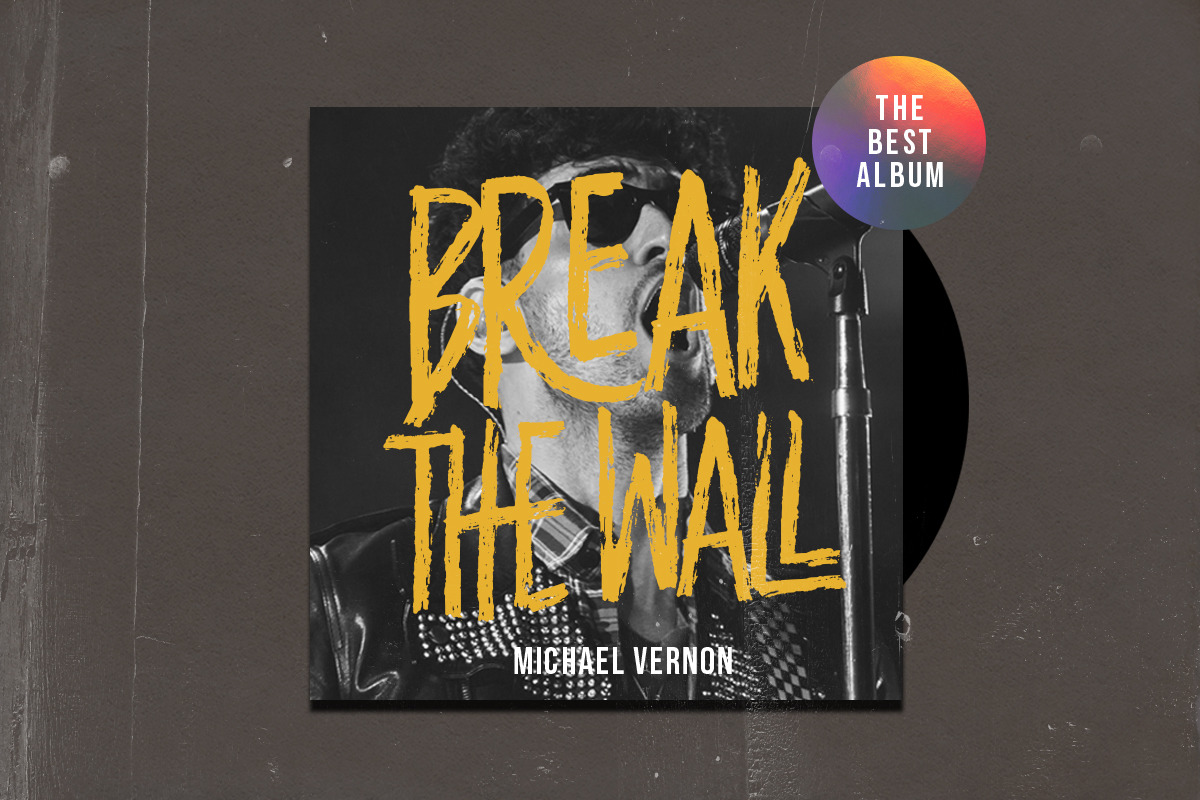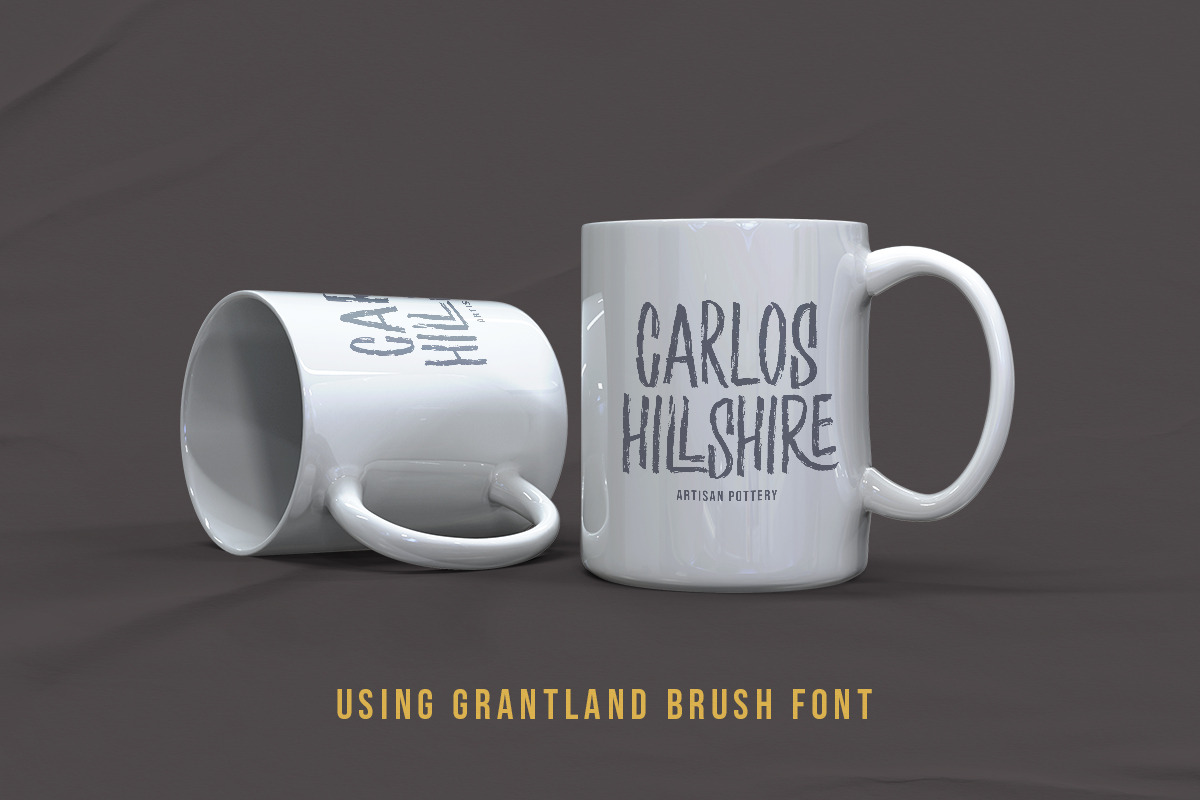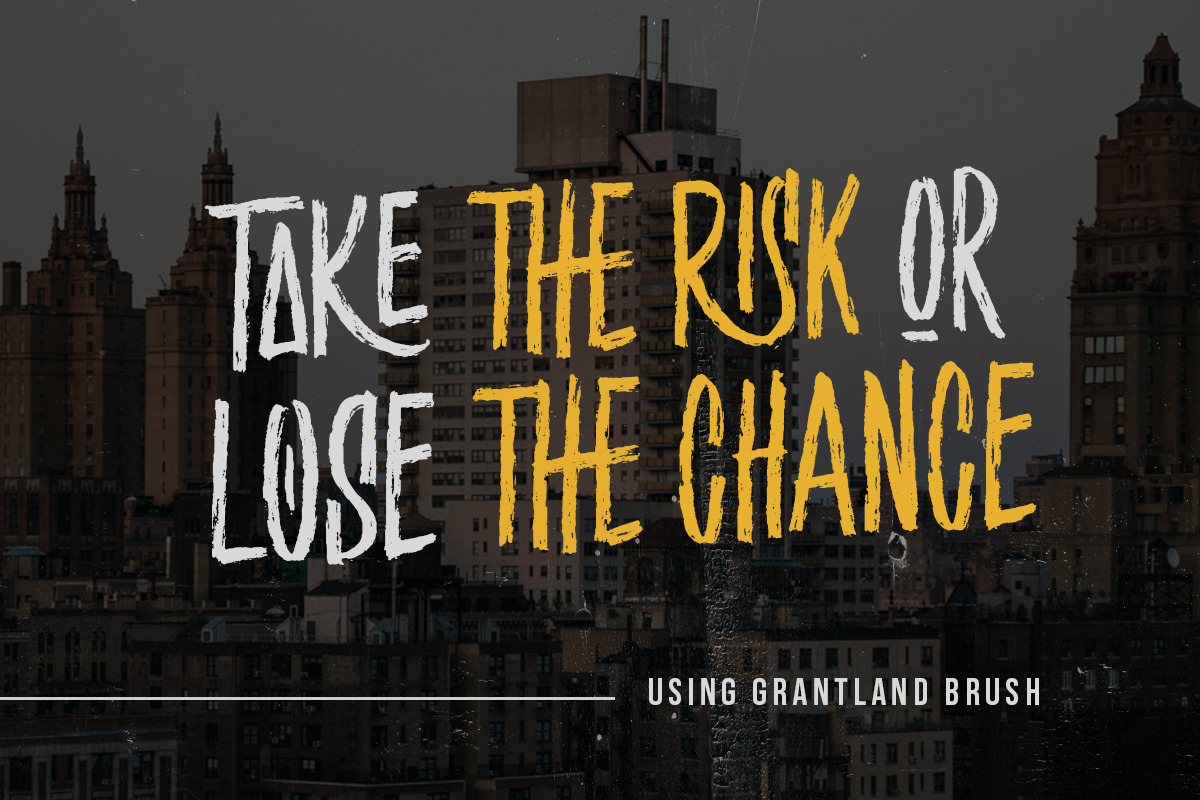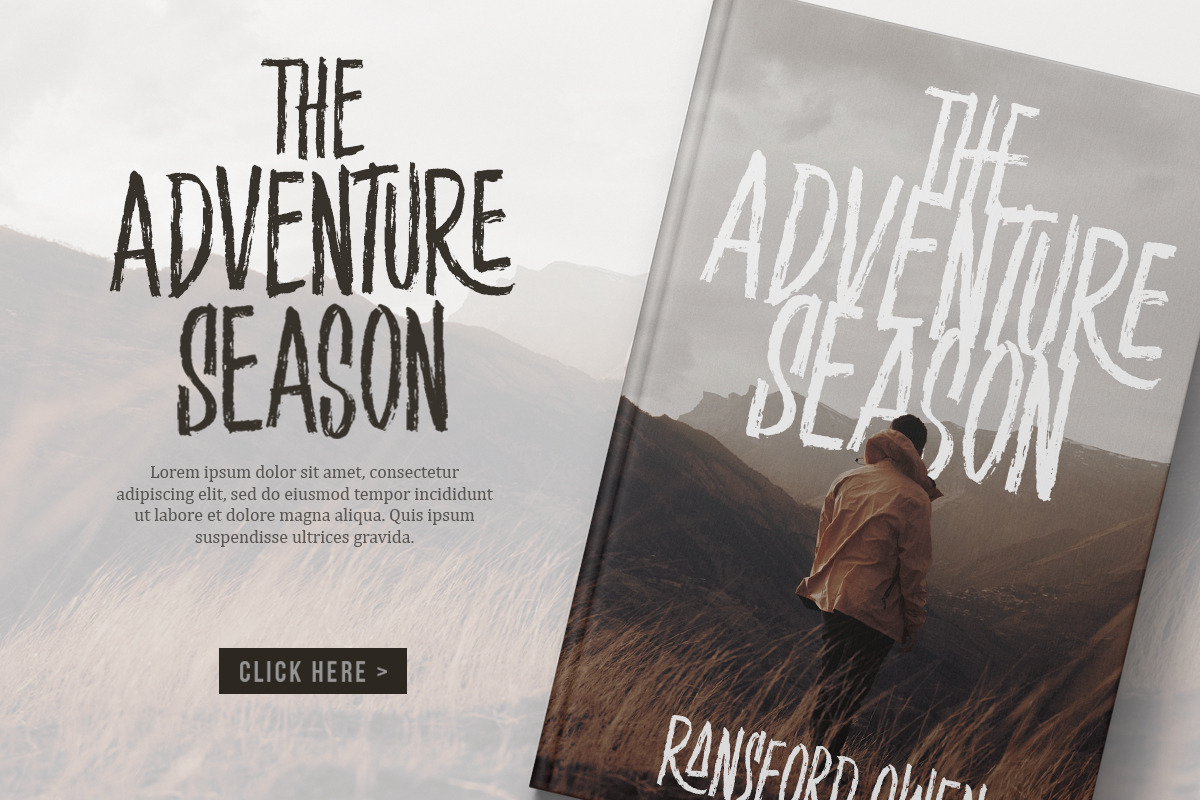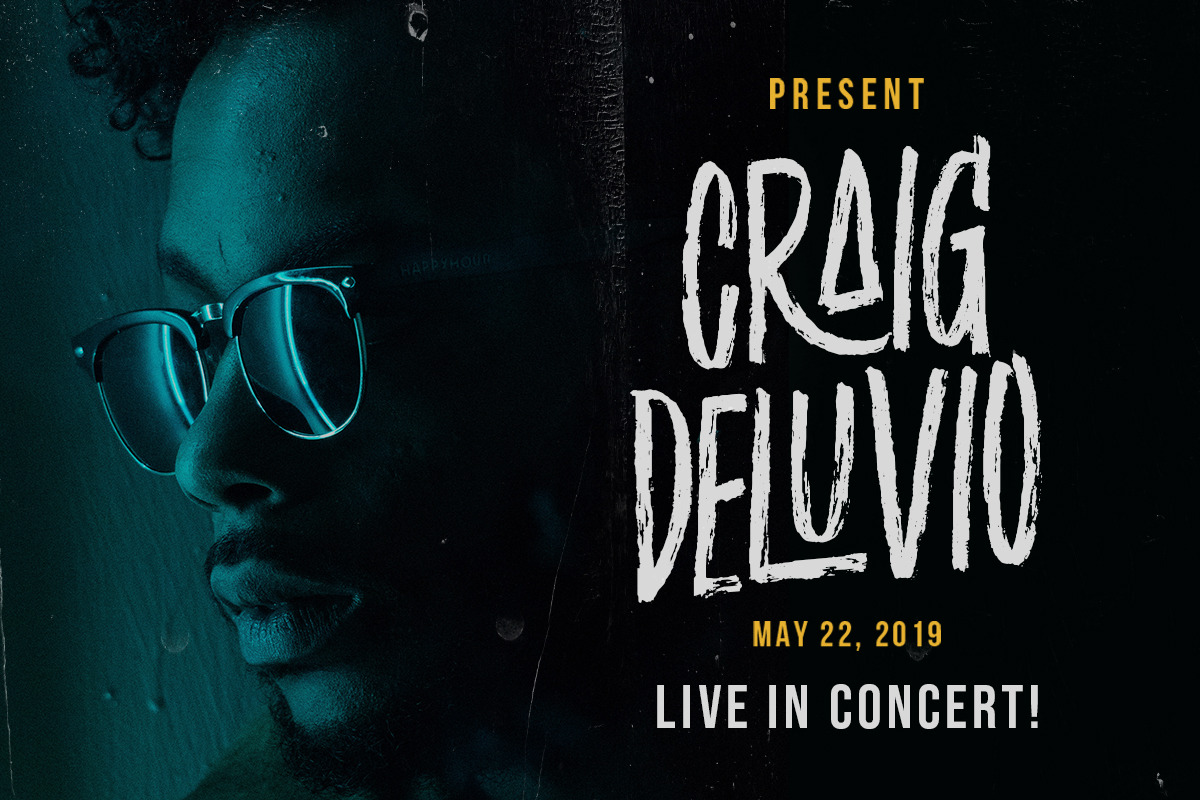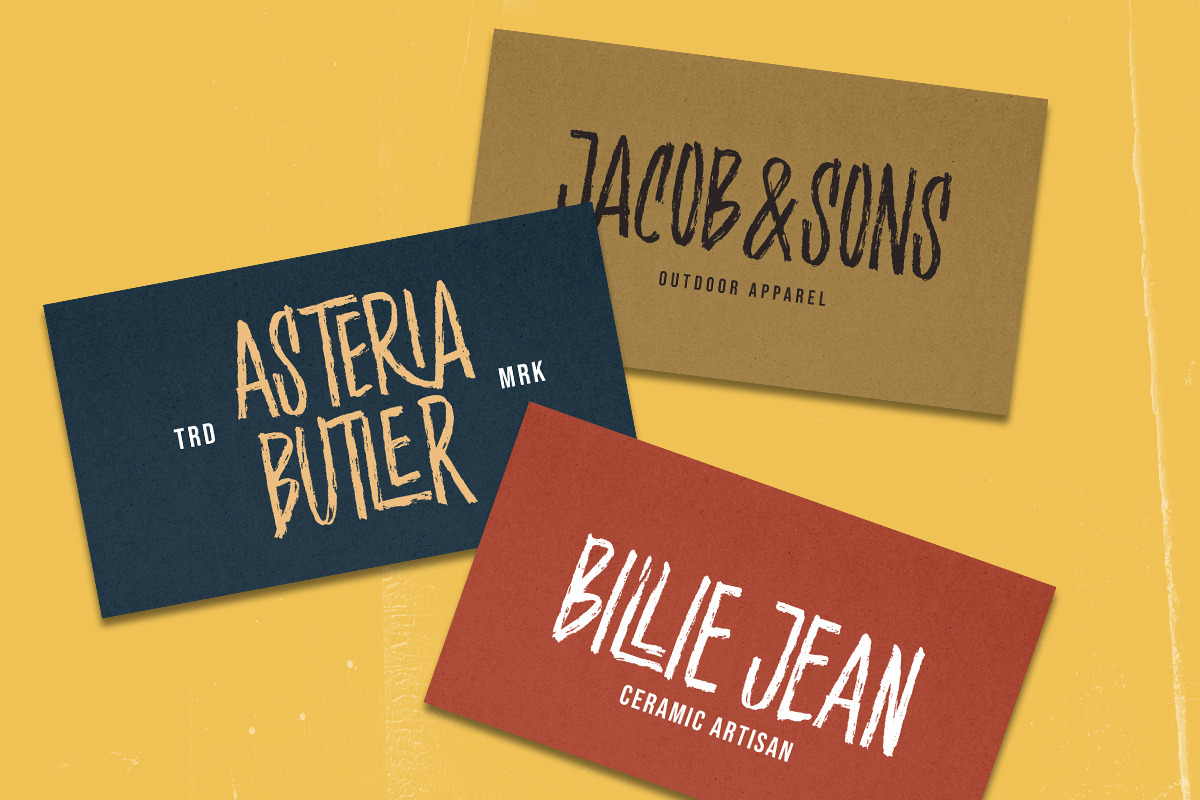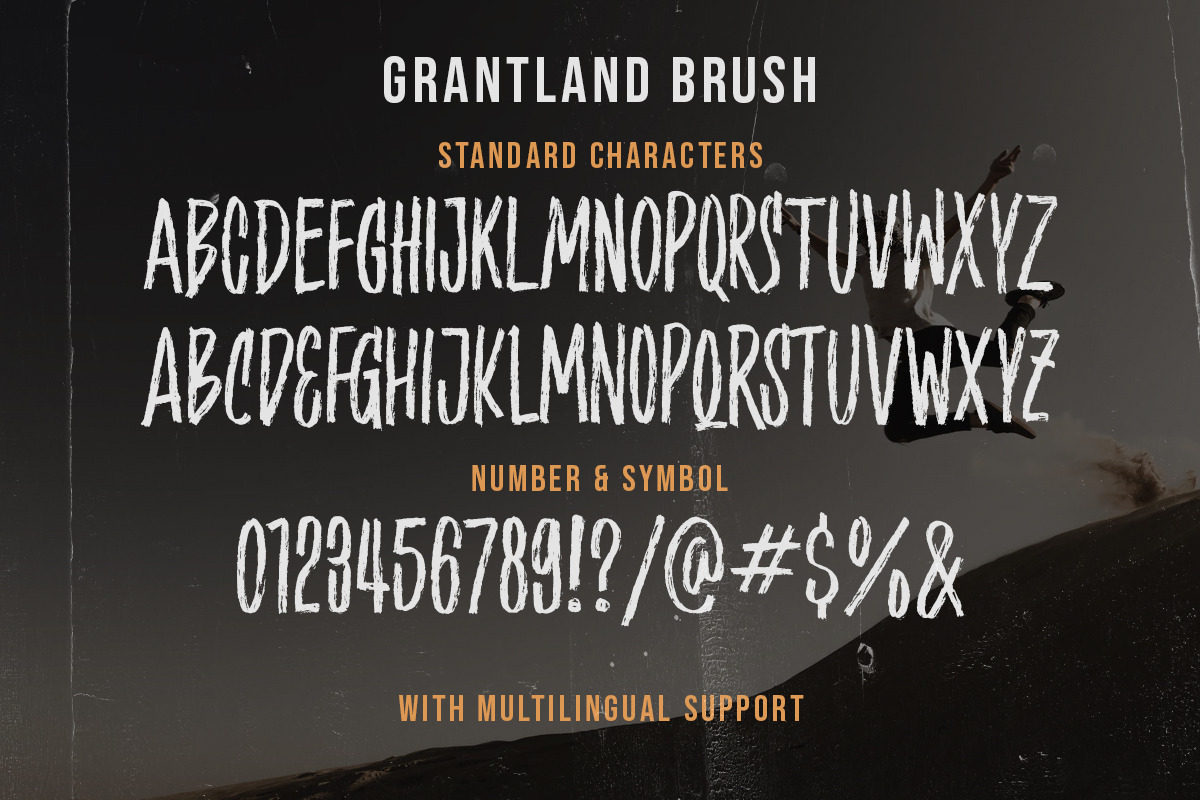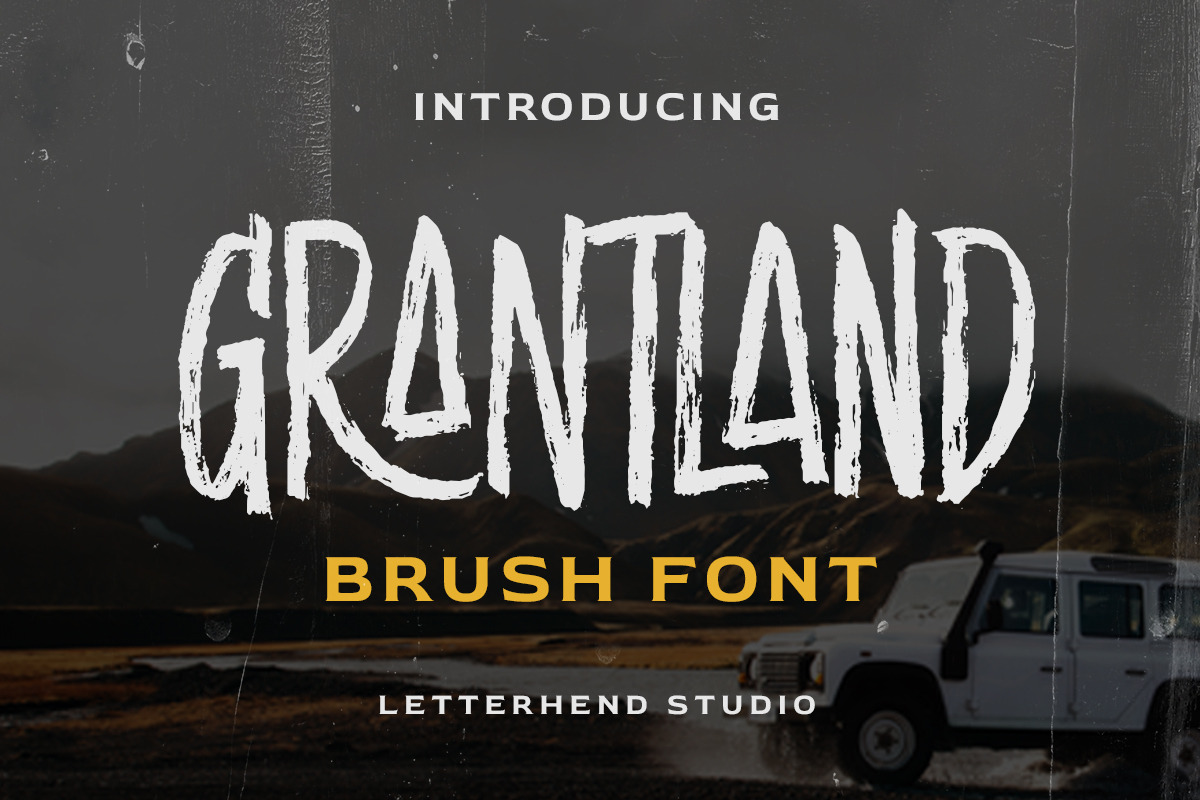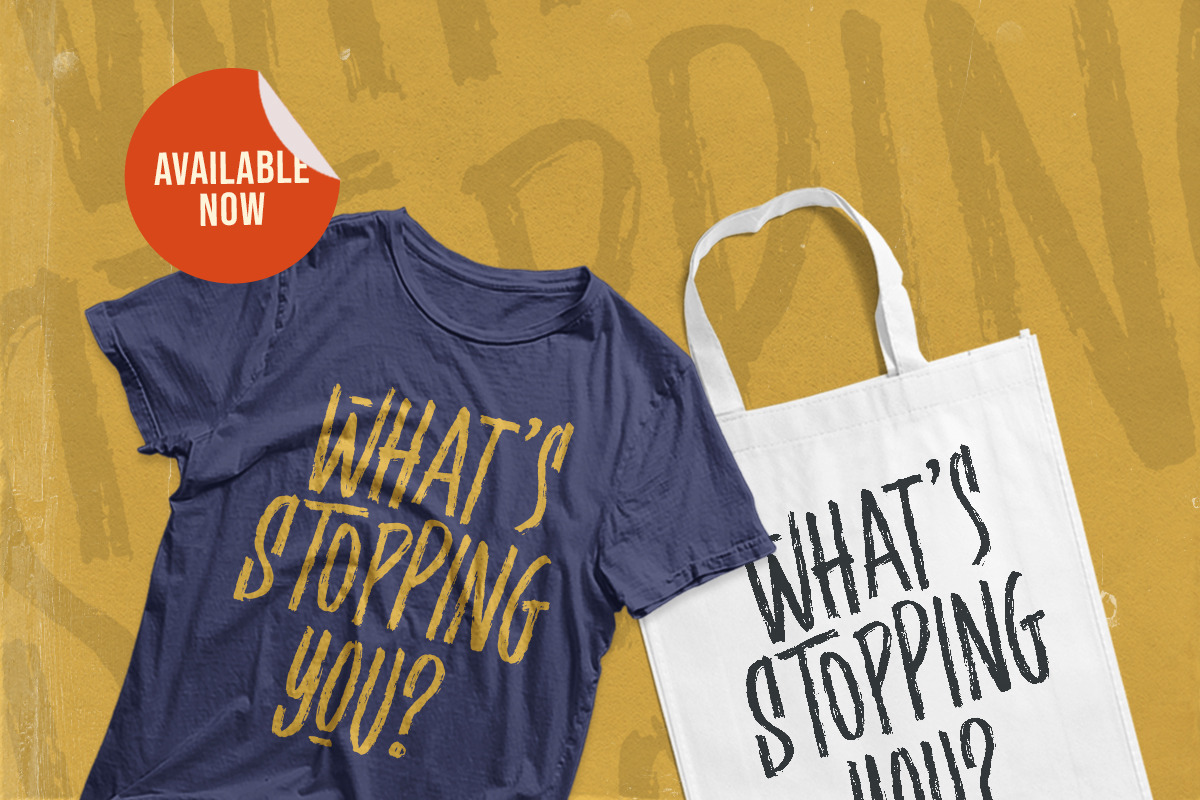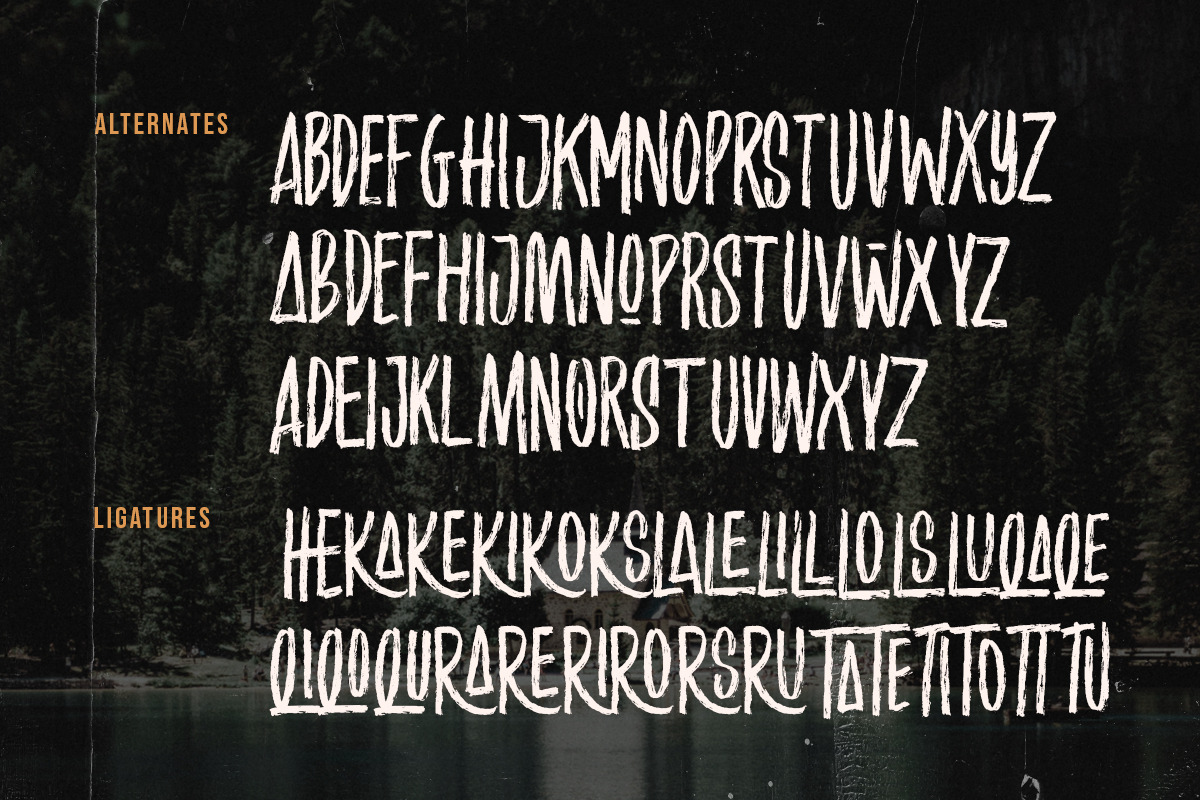
Grantland - Brush Font
Grantlad is a condensed hand drawn brush font which is purposely made for headline, display or logotype, and signature which need a standout appearing. This font is also suitable to be applied especially in logo, and the other various formal forms such as invitations, labels, logos, magazines, books, greeting / wedding cards, packaging, fashion, make up, stationery, novels, labels or any type of advertising purpose.
- alternates & ligatures